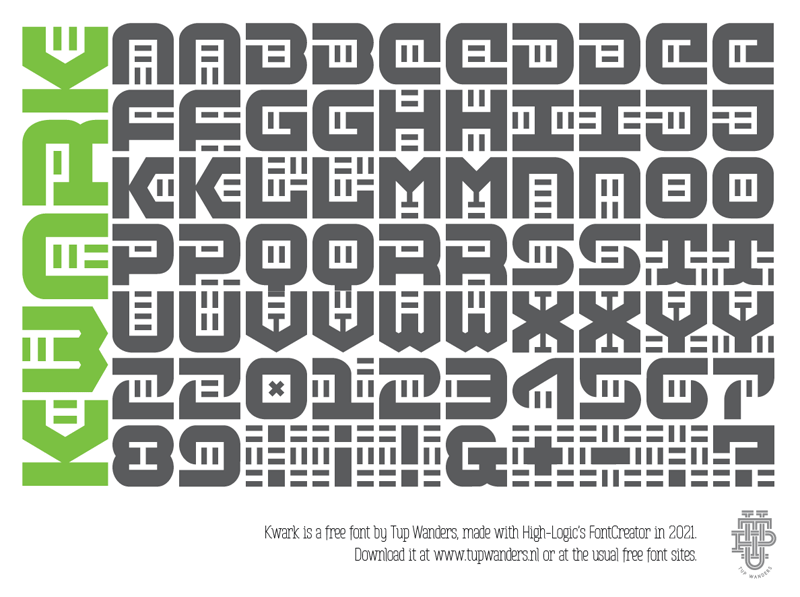
Font name: | Kwark |
Author: | Tup Wanders |
Note by Tup Wanders | |
I needed a font for a scifi game I was making. It's monospaced and hard to read but it works well as decoration. |